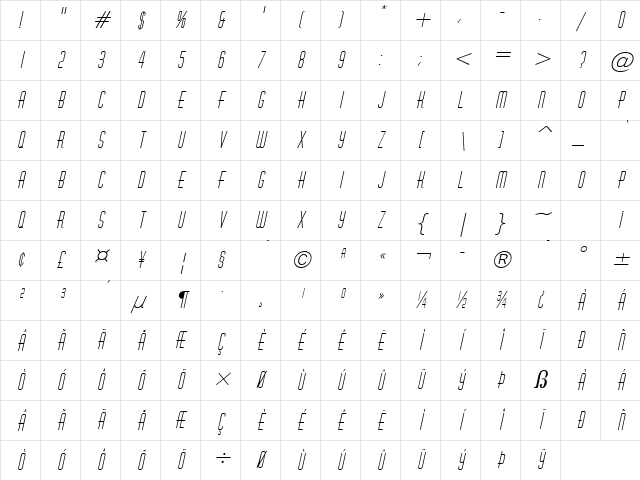
Hustle Italic
Design Context for Hustle
Hustle is a composed and adaptable typeface that performs quietly and consistently across a wide range of design contexts. The slanted form adds forward momentum and visual energy.
Pro Tip: Use Hustle for emphasis, pull quotes, and subheadings where its slanted energy can add rhythm to the layout.